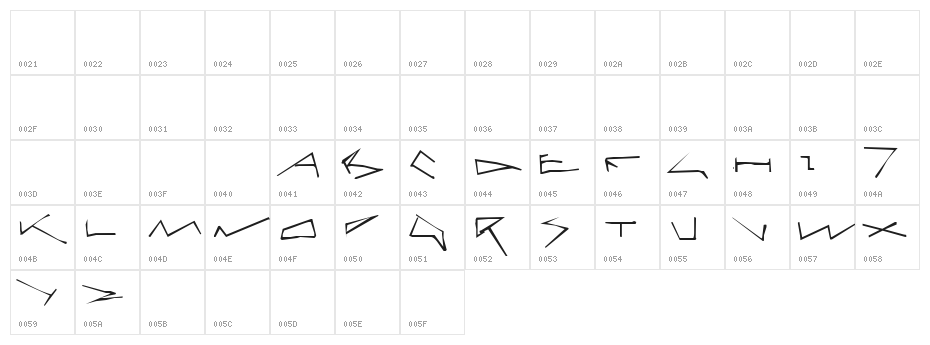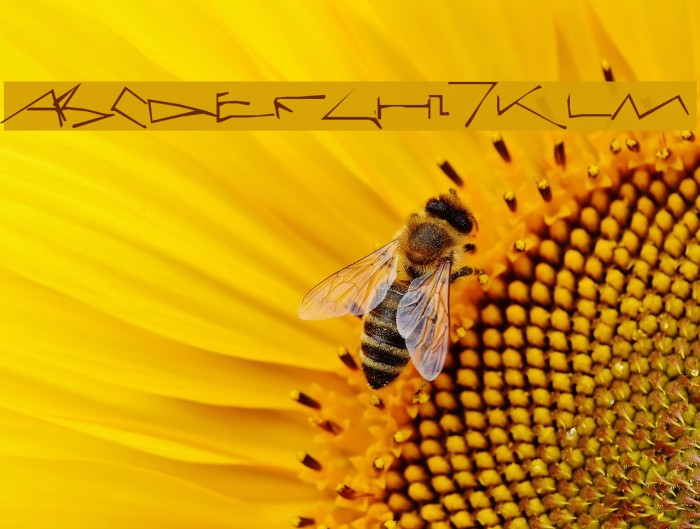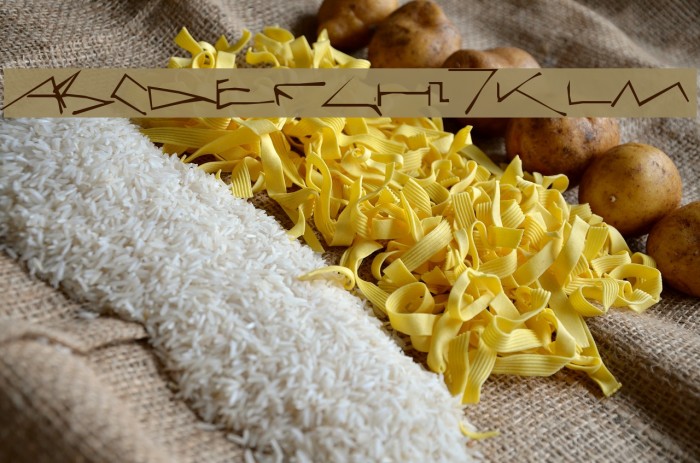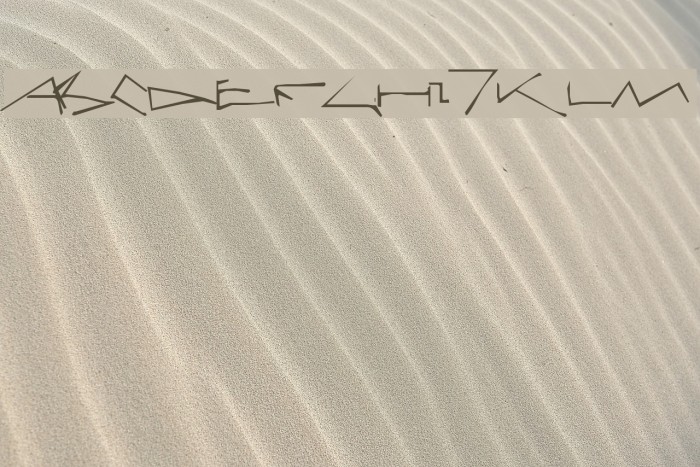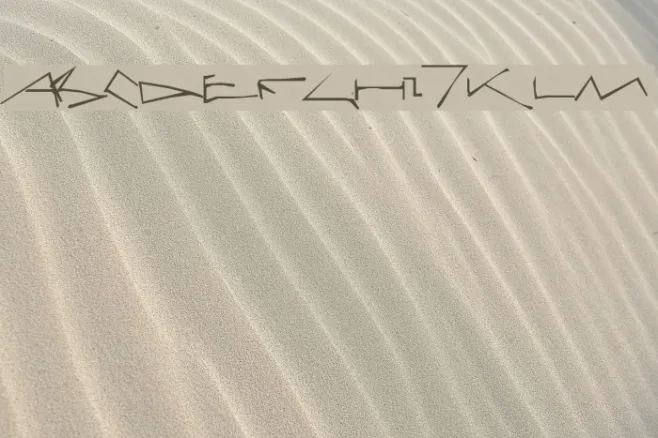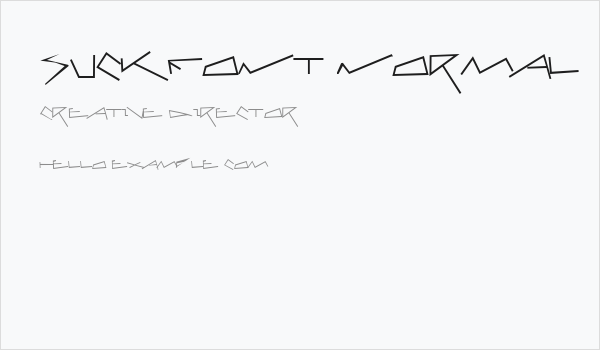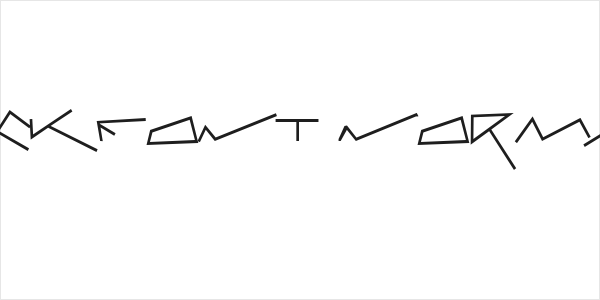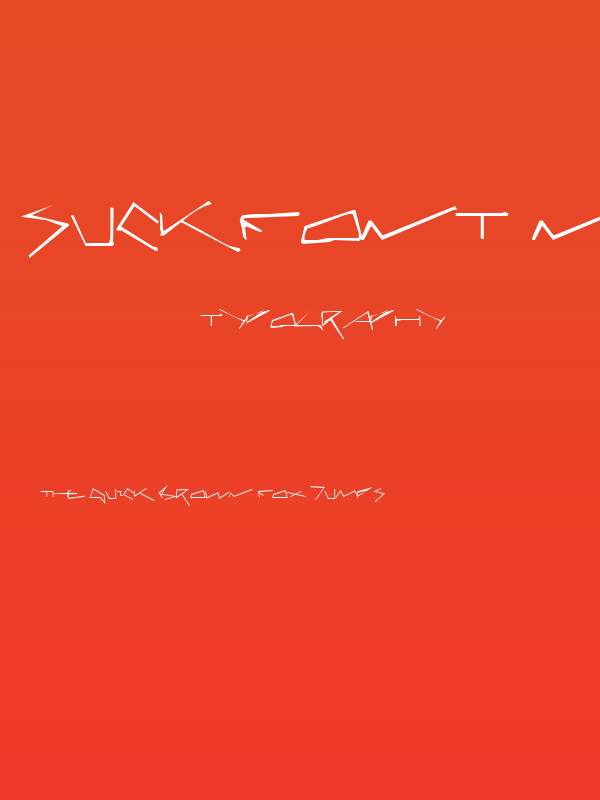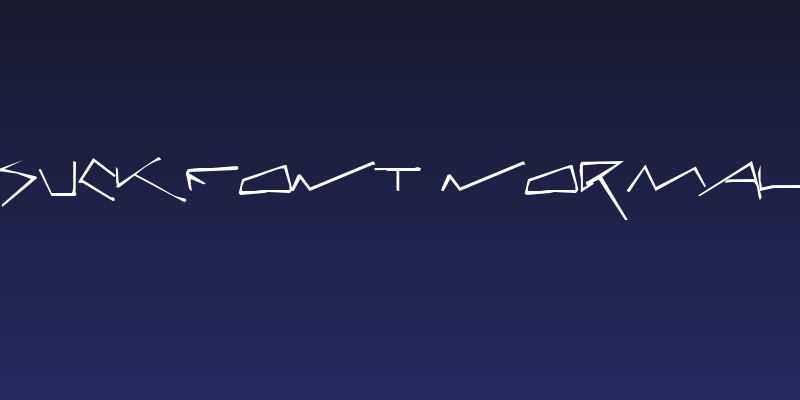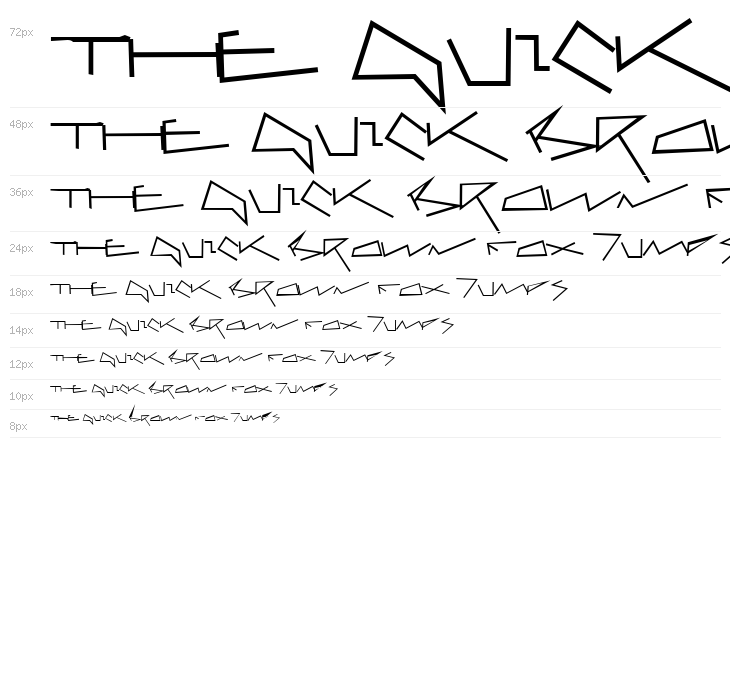
Suckfont Normal Font
Suckfont Normal Description
This font features a highly stylized, angular design with sharp edges and geometric forms. Each character is constructed with a series of straight lines and acute angles, giving it a futuristic and edgy appearance. The uppercase and lowercase letters maintain a consistent style, with a unique flair that makes each letter stand out. The numbers and special characters follow the same angular theme, ensuring uniformity across the entire character set. This font is ideal for projects that require a bold, modern aesthetic with a touch of rebellion.
| Proposed Projects | Ideal for sci-fi themed designs, edgy branding, album covers, and modern art posters. |